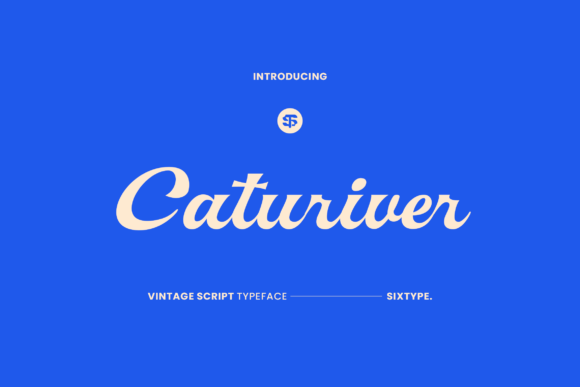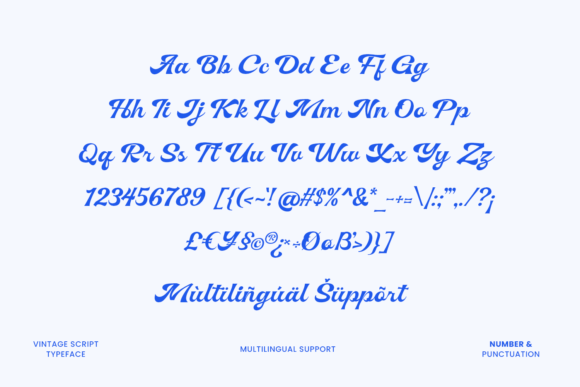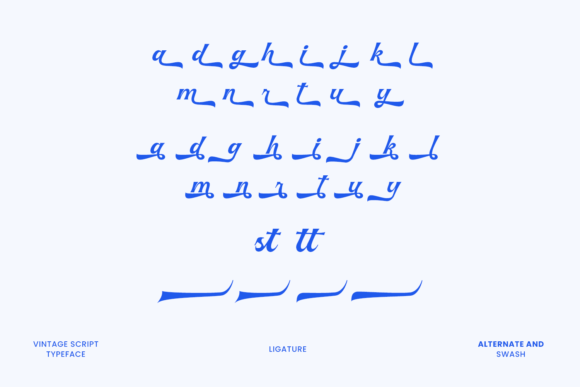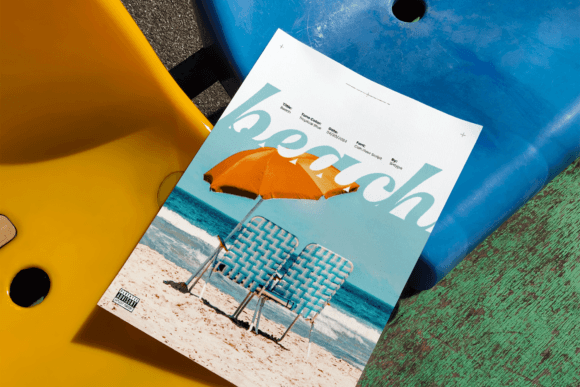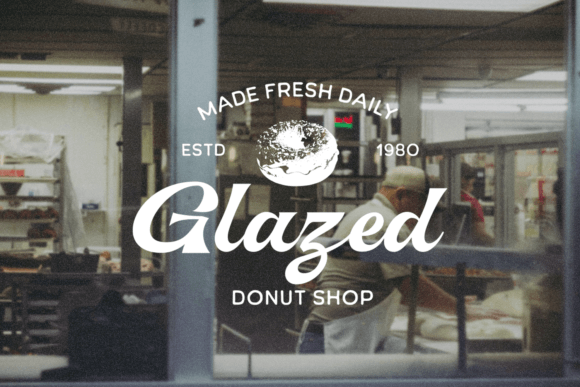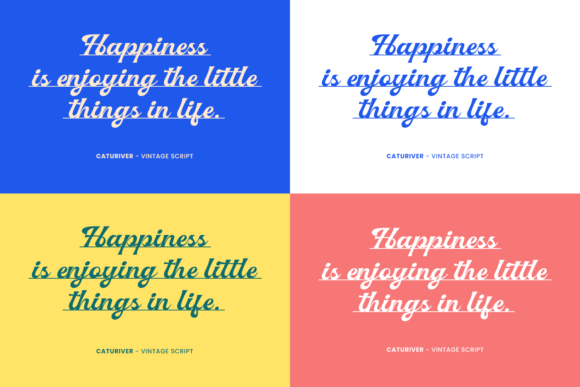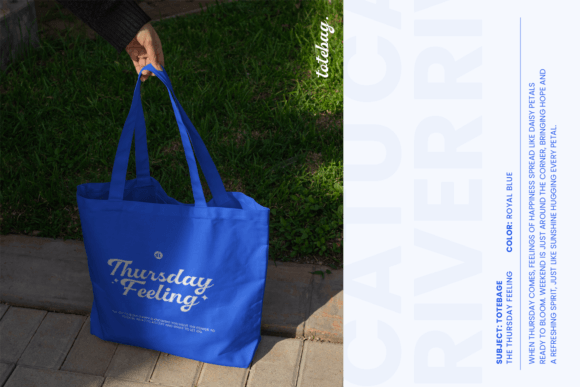
Discover the Timeless Charm of Caturiver Font
There’s something special about holding a handwritten letter or an invitation from a bygone era – the way the words seem to dance across the page, the imperfections that make it uniquely personal. As designers, we often strive to evoke that same feeling in our work, to transport our audience back to a simpler, more romantic time. That’s where Caturiver Font comes in – a vintage script font that captures the essence of handwritten love letters and meticulously penned invitations.
Crafted with meticulous attention to detail, Caturiver Font is the perfect tool for designers looking to add a touch of nostalgia and authenticity to their projects. Whether you’re creating retro logos, signage, apparel designs, or packaging, this script font brings an air of timeless charm to any project. With its PUA encoding, you can access all of the amazing glyphs and ligatures with ease, making it a valuable addition to any designer’s toolkit.
- Unique Characteristics: Caturiver Font features a unique blend of geometric and organic elements, creating a distinctive visual style.
Caturiver Font Review
I’ve had the chance to work with Caturiver Font, and here’s my honest review.
- Unique style**: Caturiver Font has a distinct, vintage vibe that can add character to any design project.
- Legibility**: The font is relatively easy to read, even at smaller sizes, making it suitable for body text.
- Customization options**: Caturiver Font offers a range of weights and styles, giving designers flexibility in their projects.
- Limited language support**: Caturiver Font may not support certain languages or character sets, which can be a limitation for global projects.
- Not ideal for headings**: While Caturiver Font can work for body text, it may not be the best choice for headings due to its relatively small x-height.
Overall impression
Caturiver Font is a solid choice for designers looking for a unique, vintage feel. While it has some limitations, its customization options and legibility make it a versatile font for various projects. If you’re looking for a font that adds character to your design, Caturiver Font is definitely worth considering.
Tips for Getting the Most Out of Caturiver Font
Experiment with different font combinations to create unique designs.
Use Caturiver font as a heading or title to draw attention.
Combine Caturiver font with other design elements to create a cohesive look.
Caturiver font is ideal for:
Designing creative and modern graphics.
Creating engaging headings and titles.
Adding a touch of elegance to your designs.
Alternatives to Caturiver Font
Comparison to Caturiver Font: Playfair Display has a more classic and traditional feel compared to Caturiver Font’s unique, vintage-inspired aesthetic. Playfair Display is more ornate and decorative, while Caturiver Font has a more subtle, hand-drawn feel.